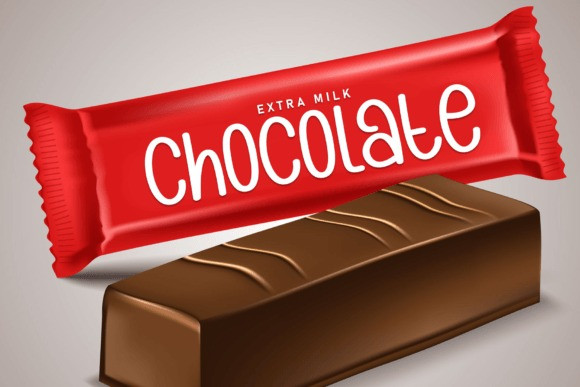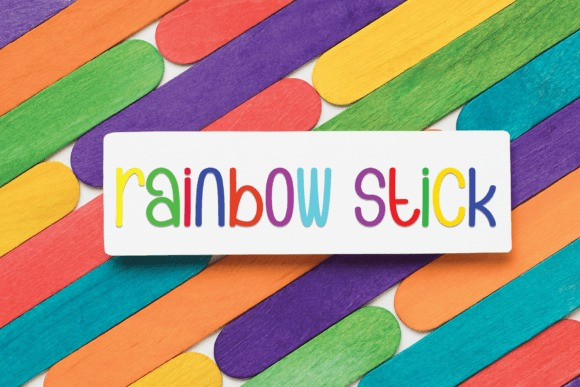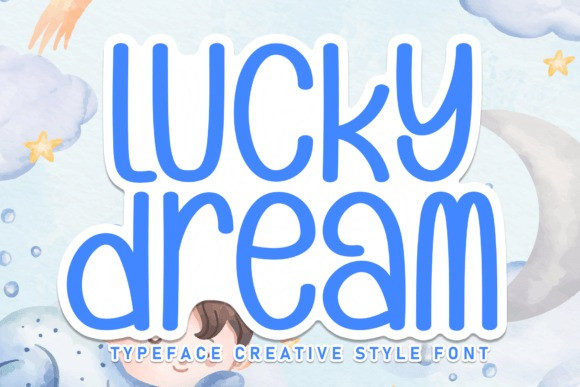
Lucky Dream Font
Lucky Dream Font is a sweet and friendly handwritten display font. Cute and fun, this font is ideal for writing wedding invitations, cards, or any other design that might need a fun touch!